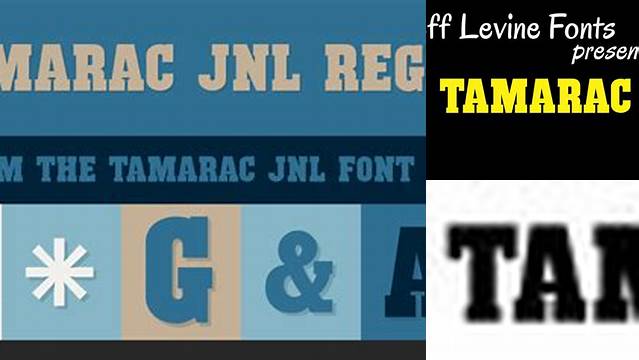
H2: The Allure of Tamarac JNL Font: A Deep Dive
Alright, let's get into the nitty-gritty of the Tamarac JNL font. This isn't just any font; it's got character! Designed by the talented Jeff Levine, Tamarac JNL is a slab serif font that oozes vintage charm. Think classic Americana, old-school signage, and anything that needs a touch of nostalgia. The font's bold, sturdy appearance makes it perfect for headlines, logos, and any design element where you want to grab attention. The letterforms are strong, yet they have a subtle, almost hand-drawn feel, adding a human touch that's often missing in modern, perfectly polished fonts. If you are looking for the Tamarac JNL font free download, it is not a difficult task to find it, but please read the license first. This font family is versatile and can be used for various purposes.
This font really stands out in a crowd. It's got that rugged, almost weathered look that’s super trendy right now. Plus, the slab serifs give it a solid, dependable feel, which makes it great for conveying strength and stability. Whether you’re creating a poster, designing a website header, or working on a branding project, this font can instantly inject a dose of personality. Imagine using it for a vintage-themed event, a retro-style restaurant menu, or even a classic car club's logo. It's that versatile! The charm of Tamarac JNL lies in its ability to transport us to a different era. Its design is a nod to the past. It offers a unique visual experience that is both familiar and exciting. The Tamarac JNL font free download option, makes it an attractive choice for both designers and enthusiasts. You can really unleash your creativity and bring your vision to life. The font can also evoke a sense of authenticity and nostalgia. If you want your design to stand out, Tamarac JNL font free download is the perfect option. Remember that the design of this font is inspired by vintage aesthetics, so that you can create designs that are both timeless and modern.
H3: Unveiling the Design Elements
Let’s break down the design of the Tamarac JNL font even further, shall we? This font is all about those slab serifs – the blocky, rectangular shapes at the end of each stroke. These serifs give the font a solid, grounded appearance. The weight of the font is another key feature. The Tamarac JNL font is designed to be a bold, attention-grabbing font. This makes it perfect for headlines and titles. Notice how the letters are constructed. The lines are clean, yet they carry a hint of the imperfections of a hand-drawn design. This slight roughness adds a layer of authenticity, which makes the font feel more approachable. The spacing between the letters is carefully considered, to ensure that the font is readable even at large sizes. This careful attention to detail ensures that the font can be used effectively across a range of applications. Whether it’s in print or on the web, this font is crafted to perform. It's not just a beautiful font, it is also a practical one. It's perfect for conveying a sense of heritage and trustworthiness. The design of this font will help you to create visual consistency in your branding. It provides a distinct visual identity that sets your project apart. It also helps to create a connection with your target audience. You can create a design that resonates with your audience. The Tamarac JNL font free download also gives you a lot of flexibility. It's a great tool for designers and anyone looking to create visually stunning designs. Whether you're working on a personal project or a professional one, it can definitely make a difference.